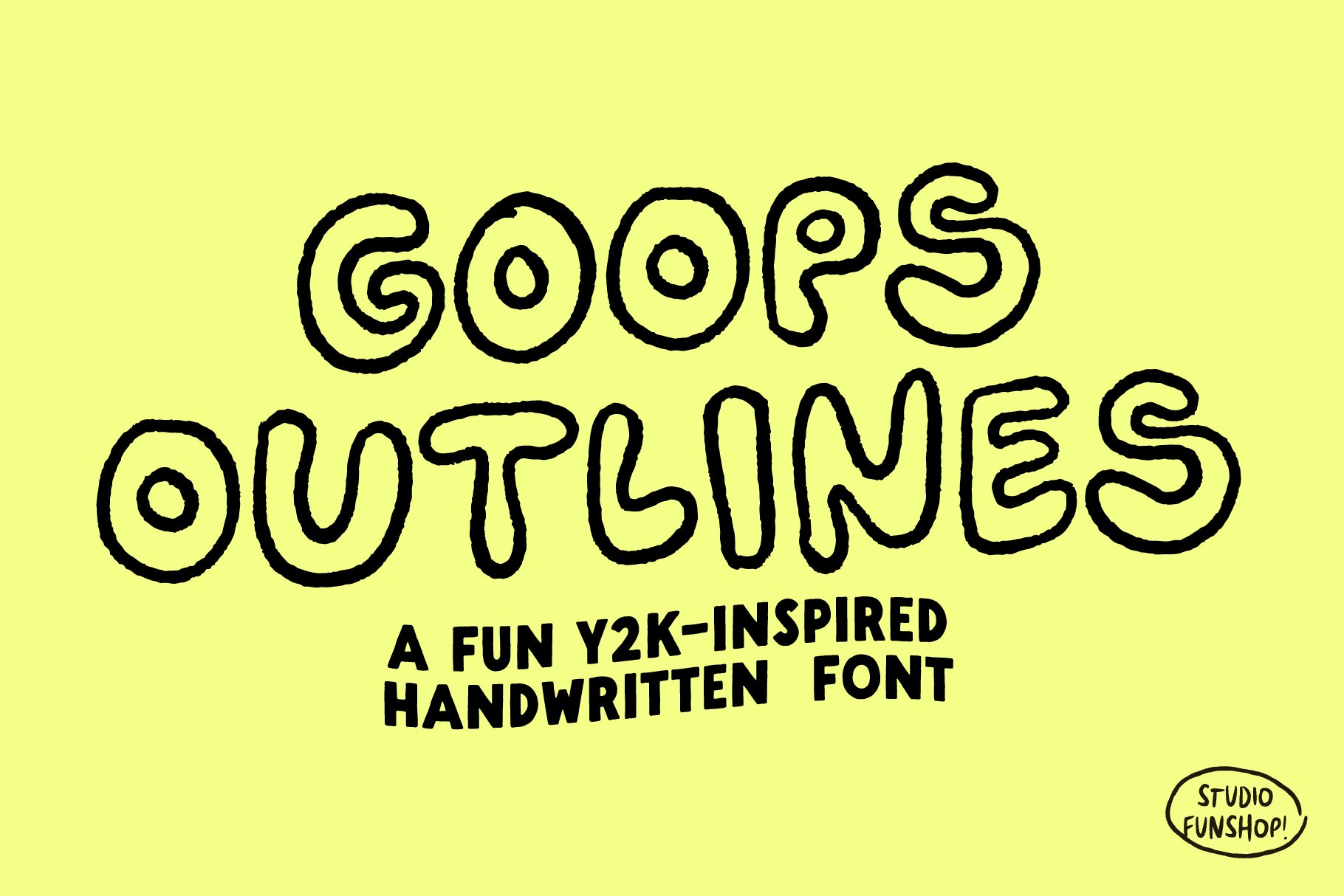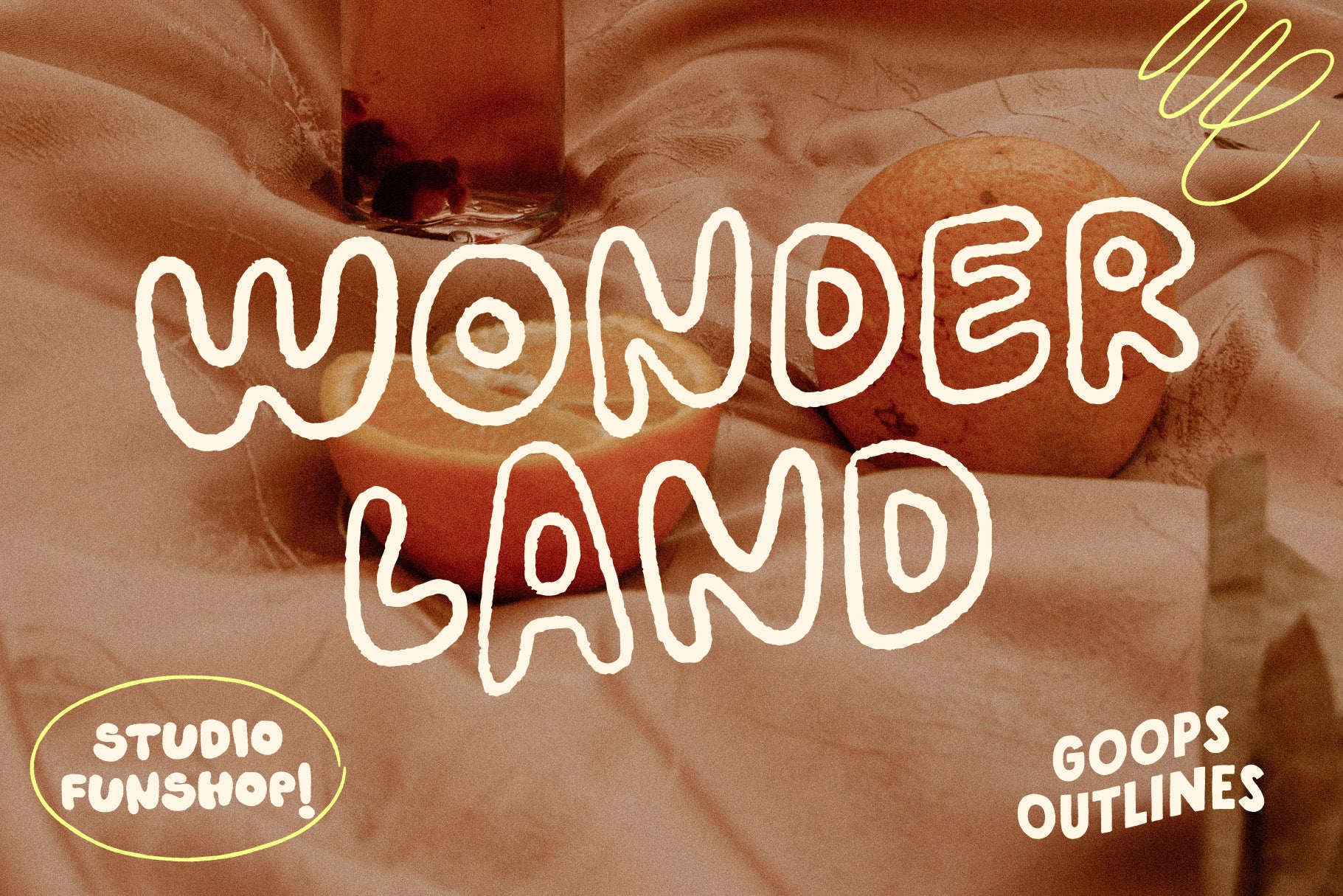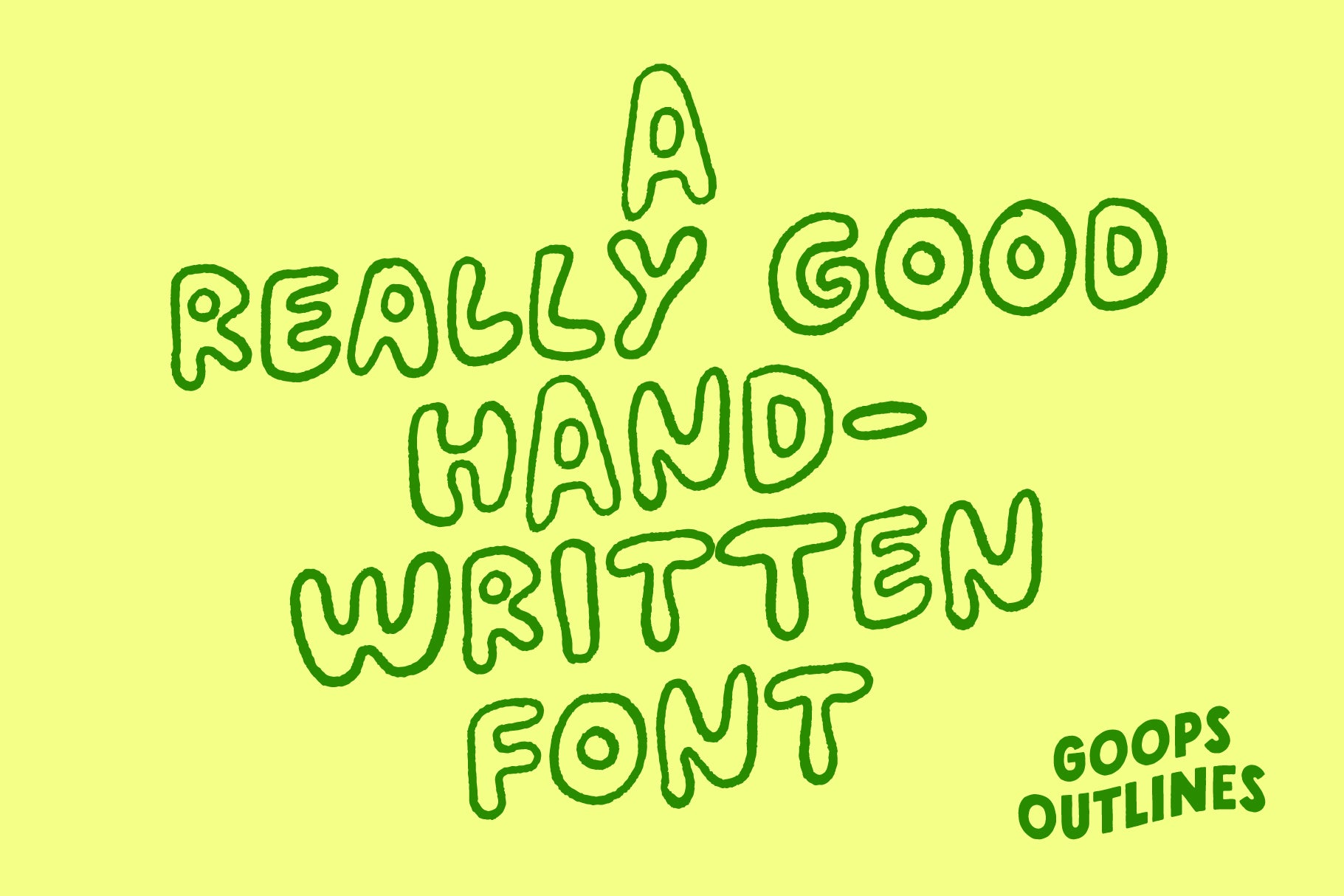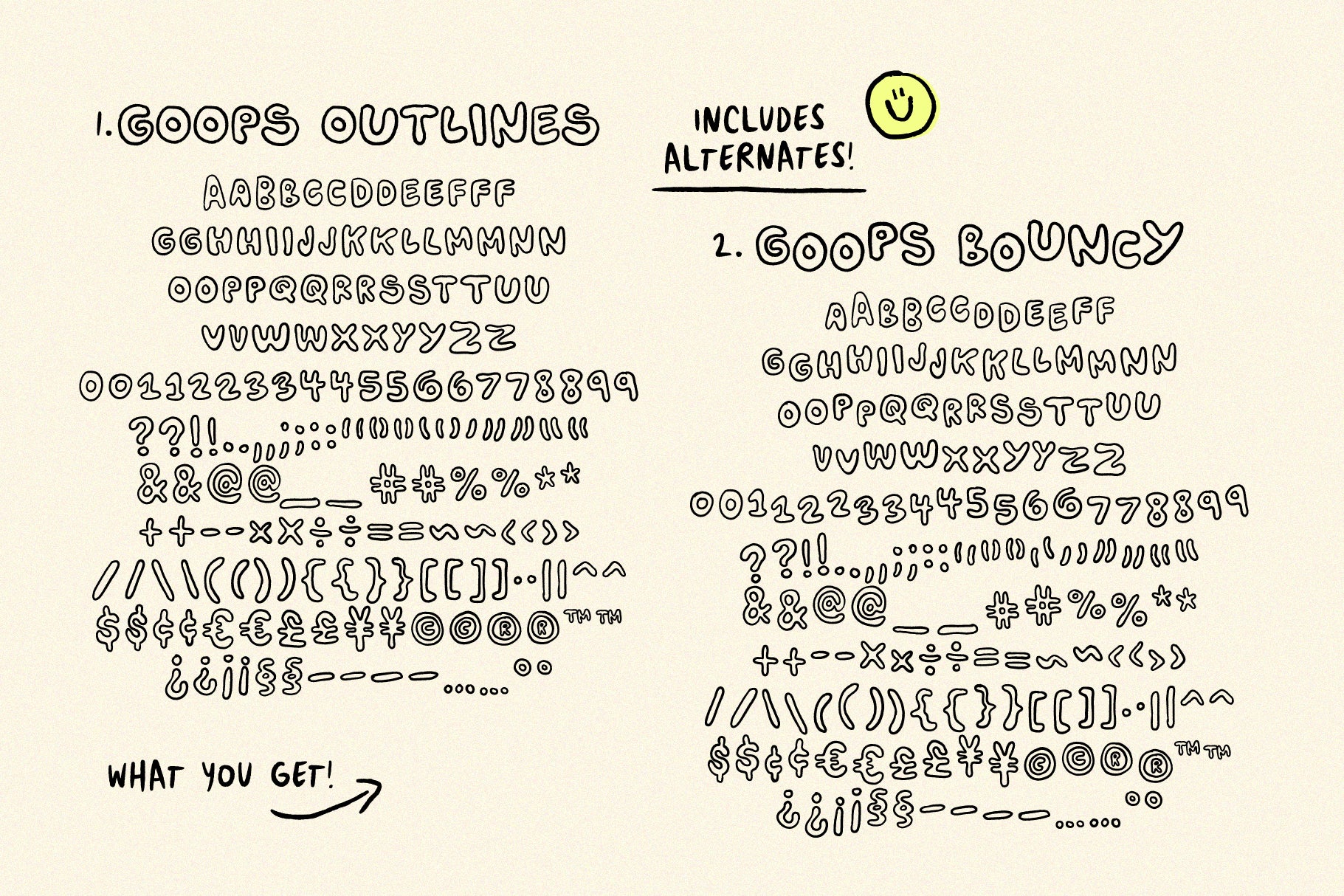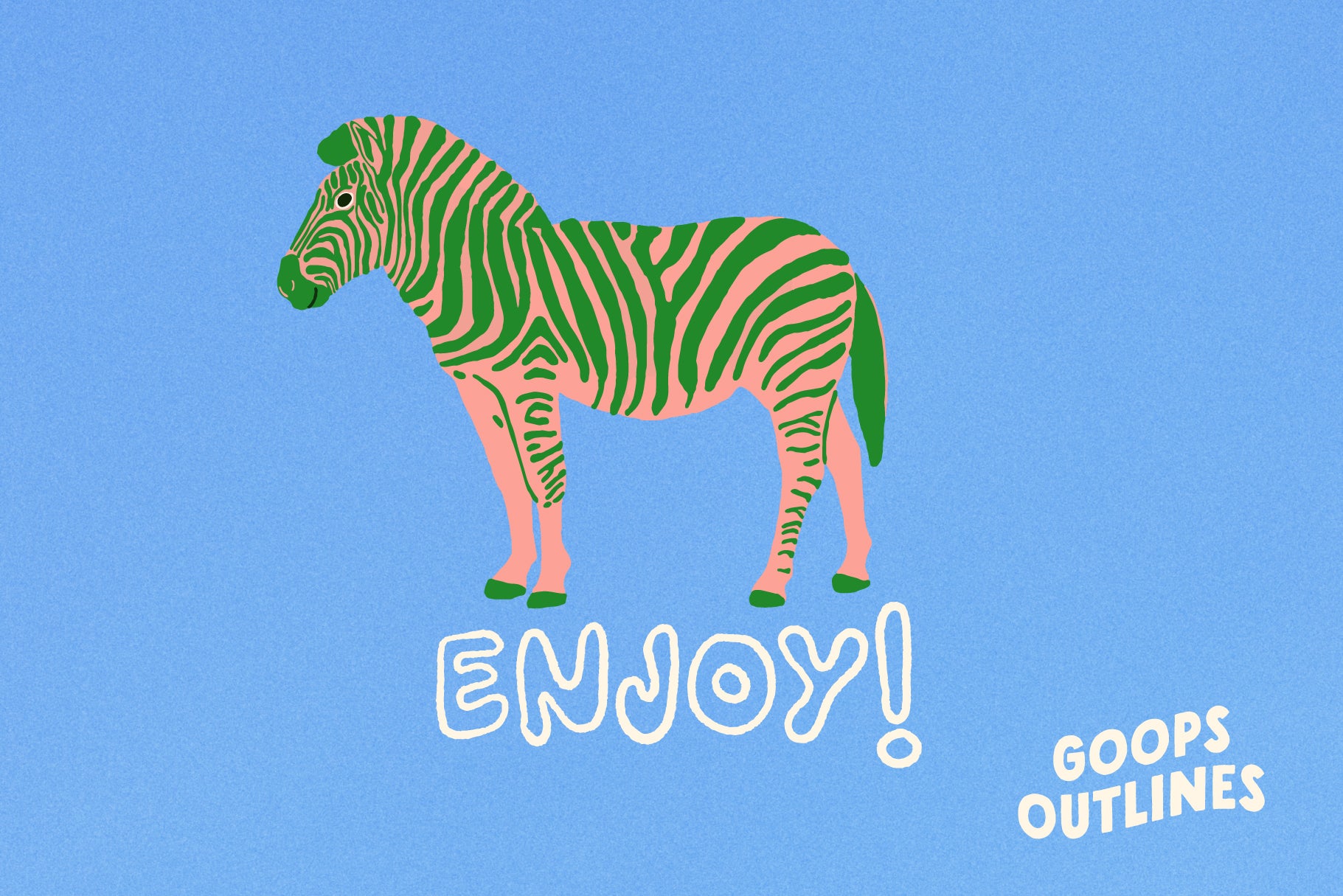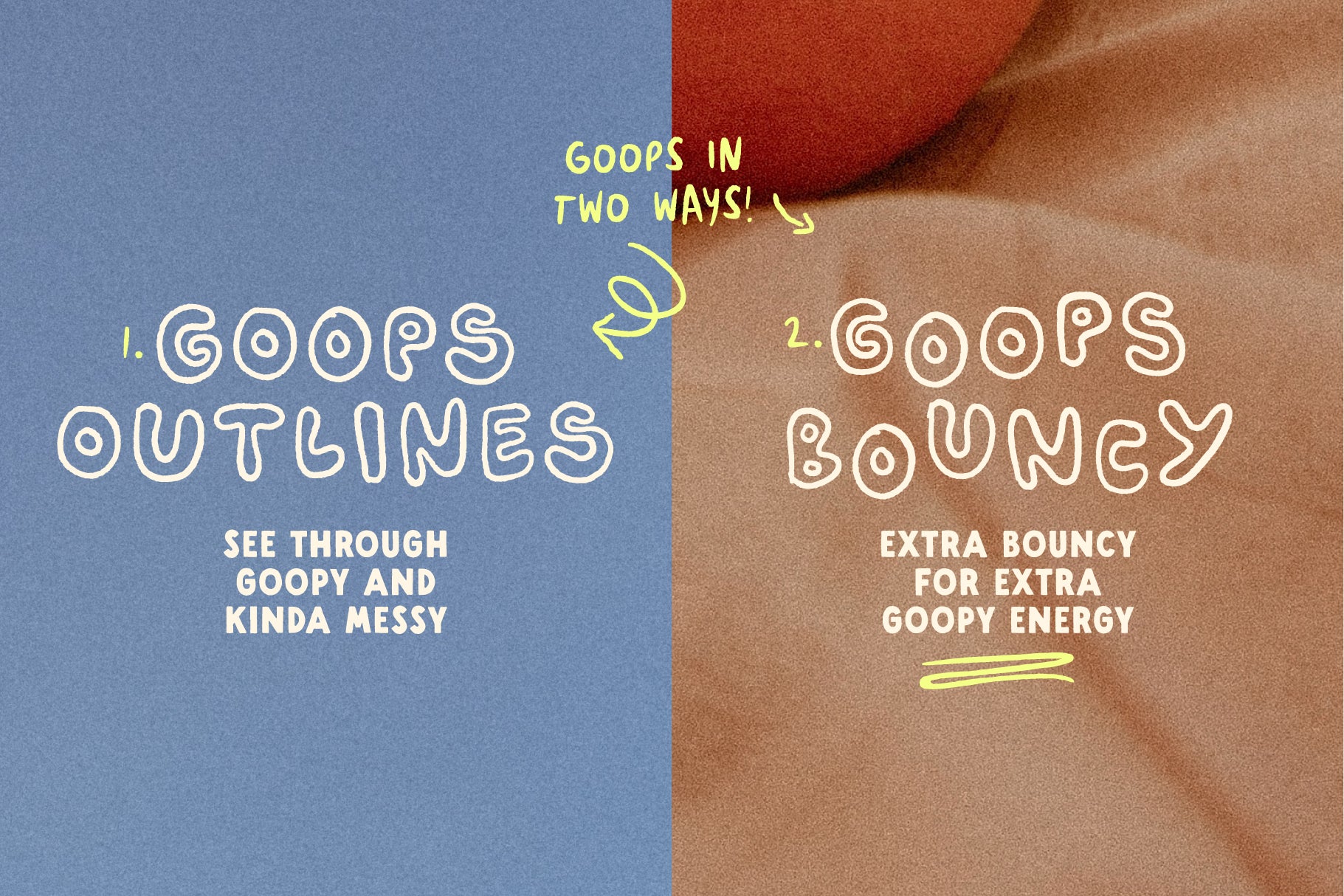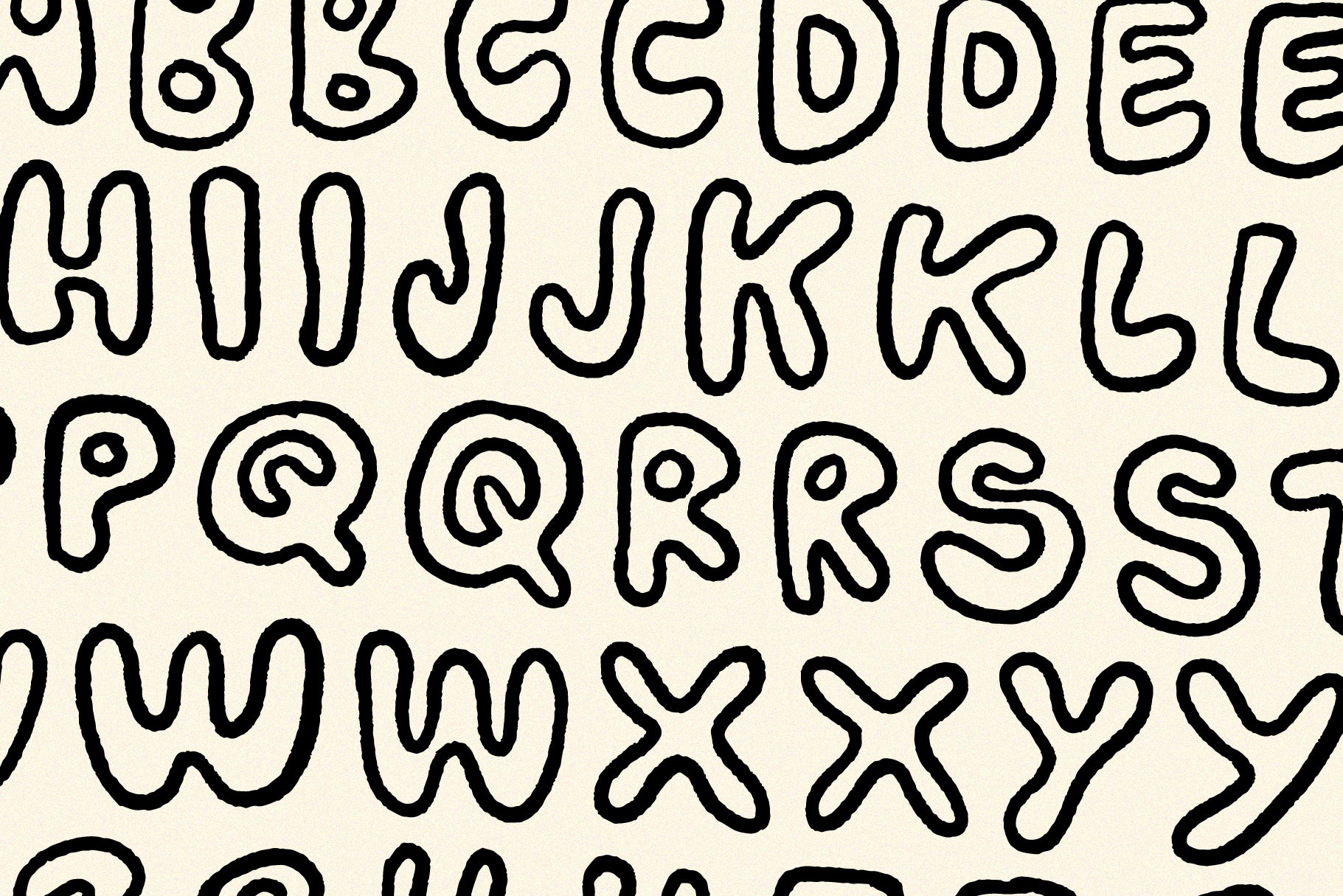
Goops Outlines - Handwritten Font
A fun Y2K-inspired handwritten bubble font in two styles, regular and bouncy!
I mixed a bit of texture and a bit of goopy-ness to create a wonderfully imperfect and unique font. Plus, this font includes alternates for extra handmade goodness!
Also great for logos, quotes, art, branding and more! Enjoy!
What's in the font? Uppercase Letters A-Z! Numbers! Symbols! Punctuation! Alternates! (see slides!)